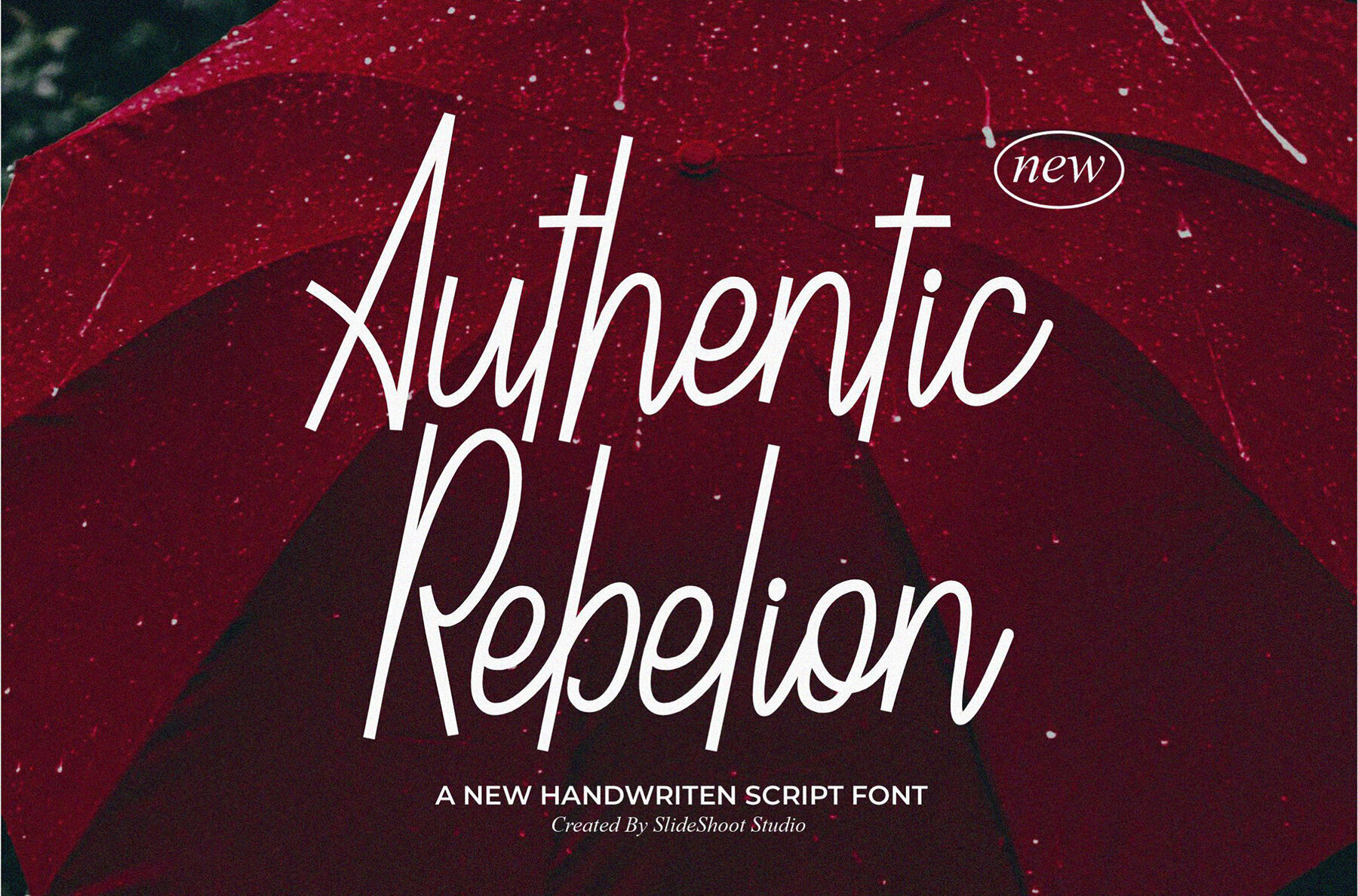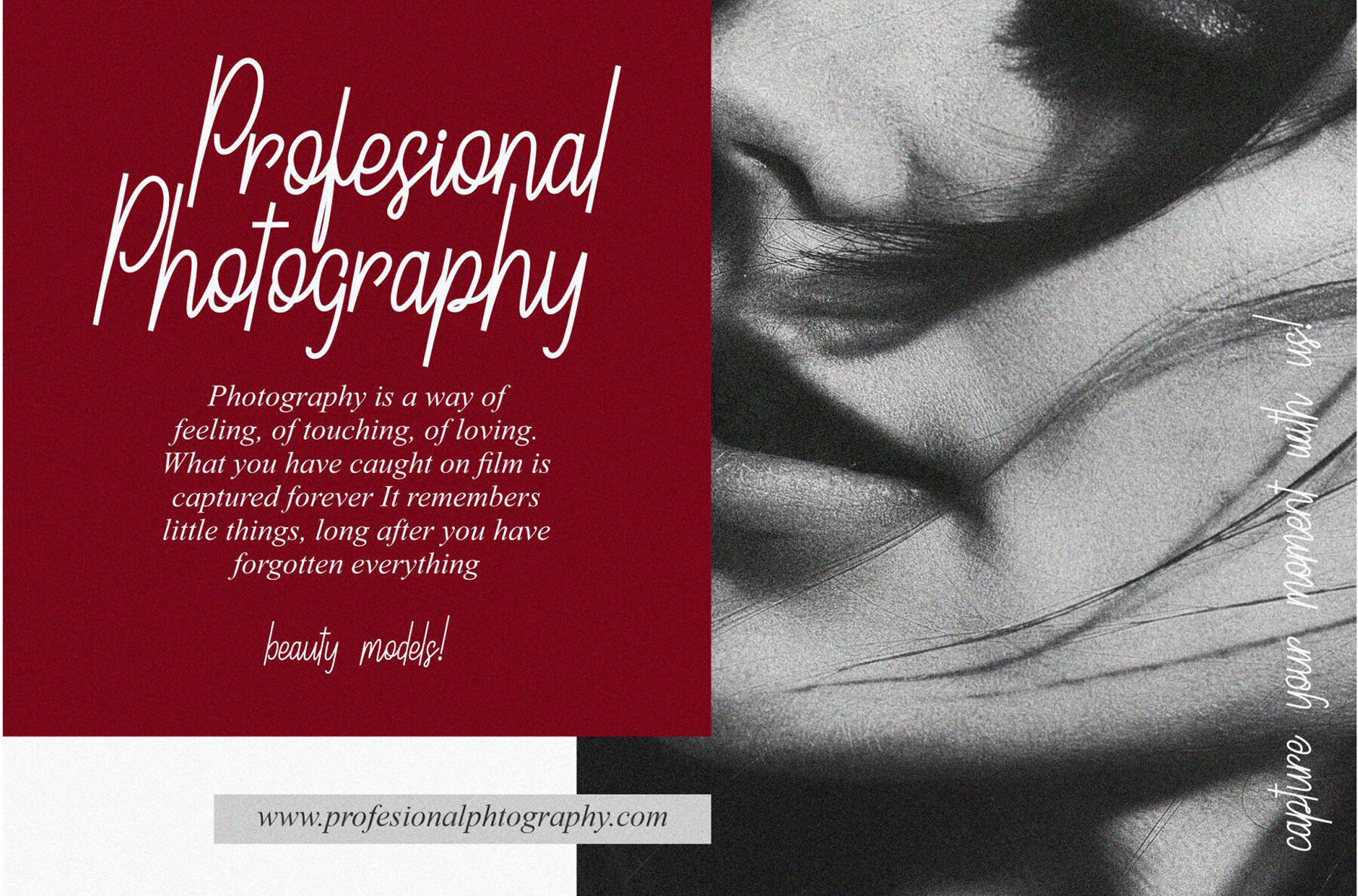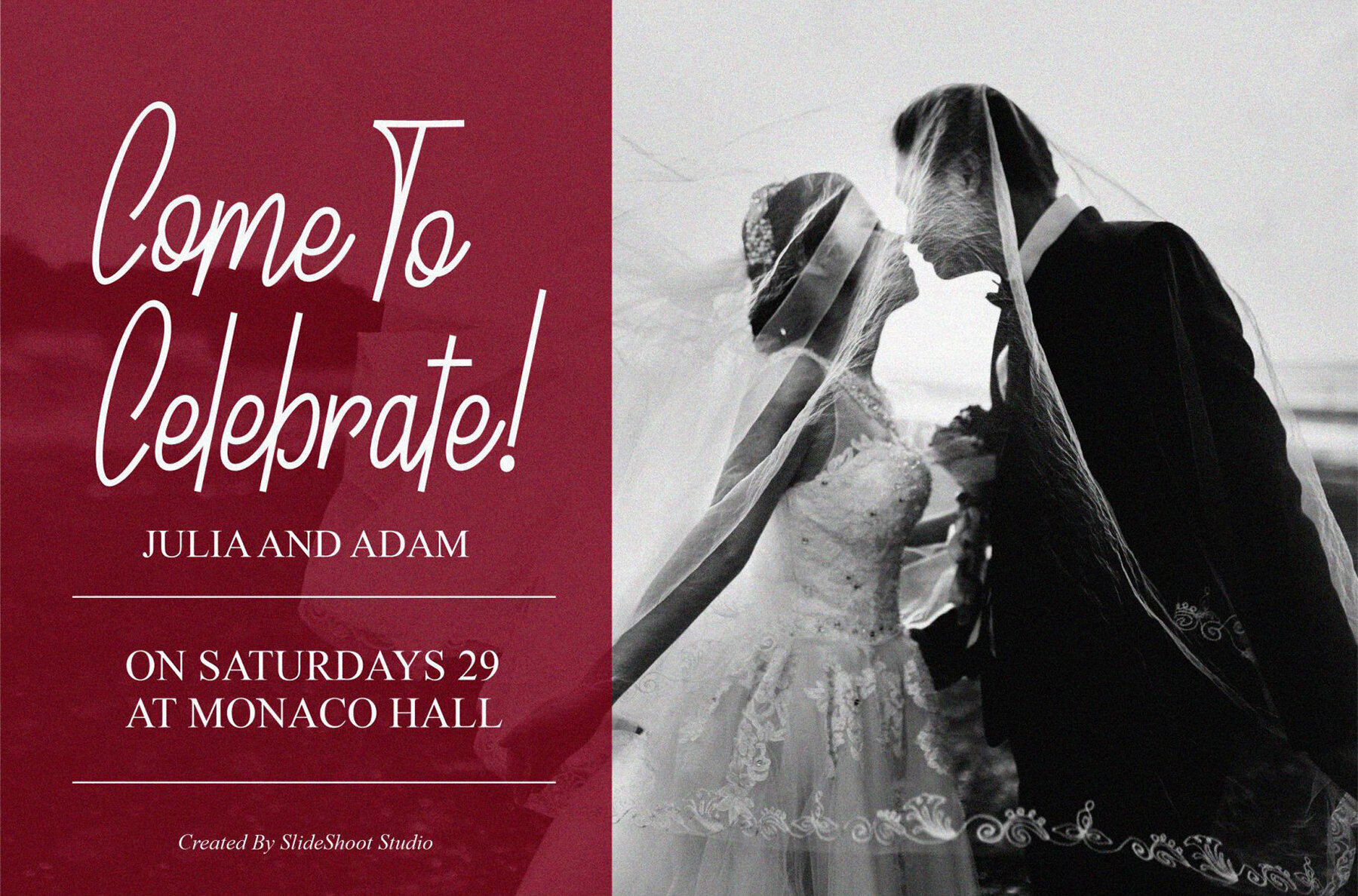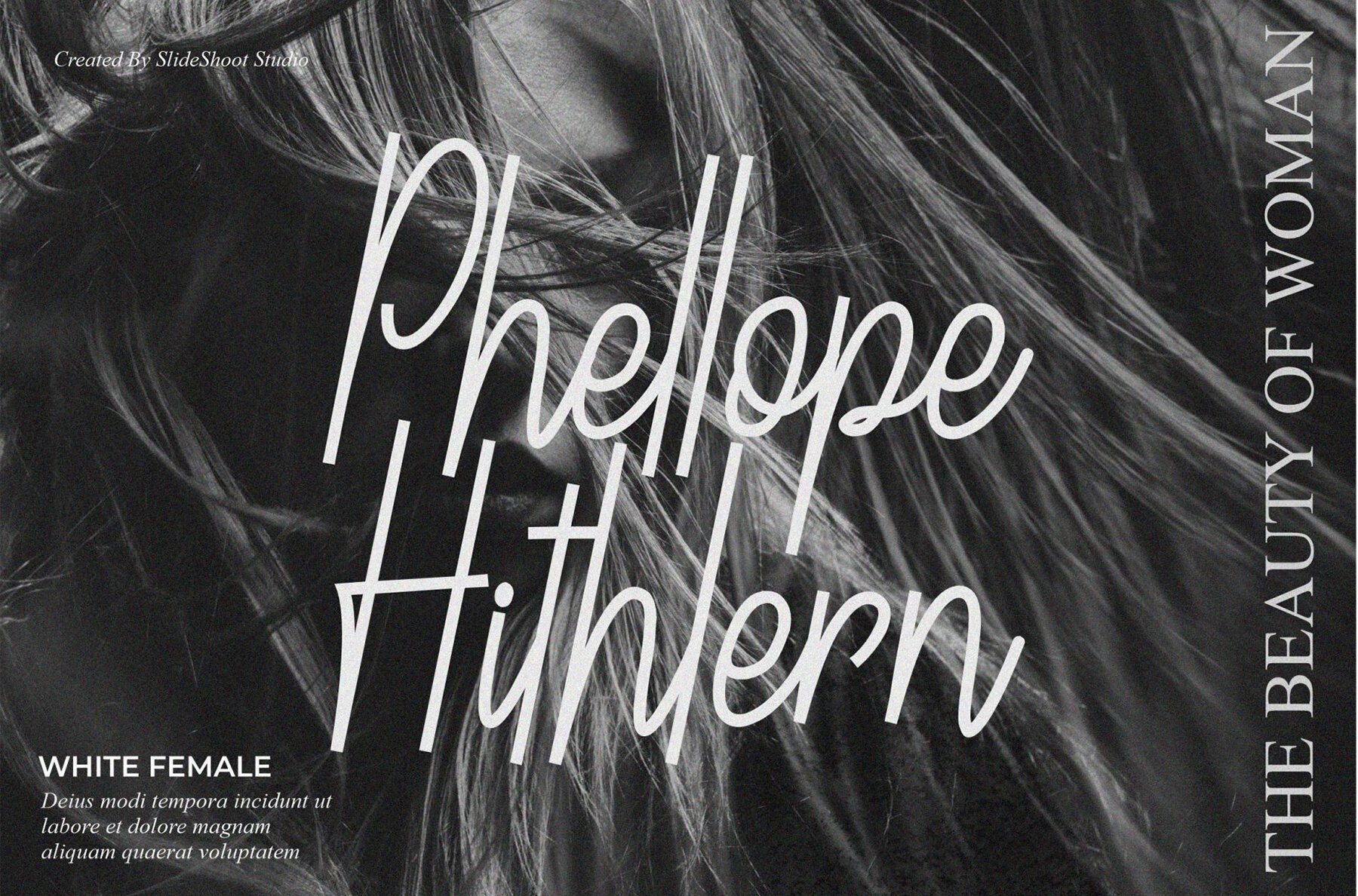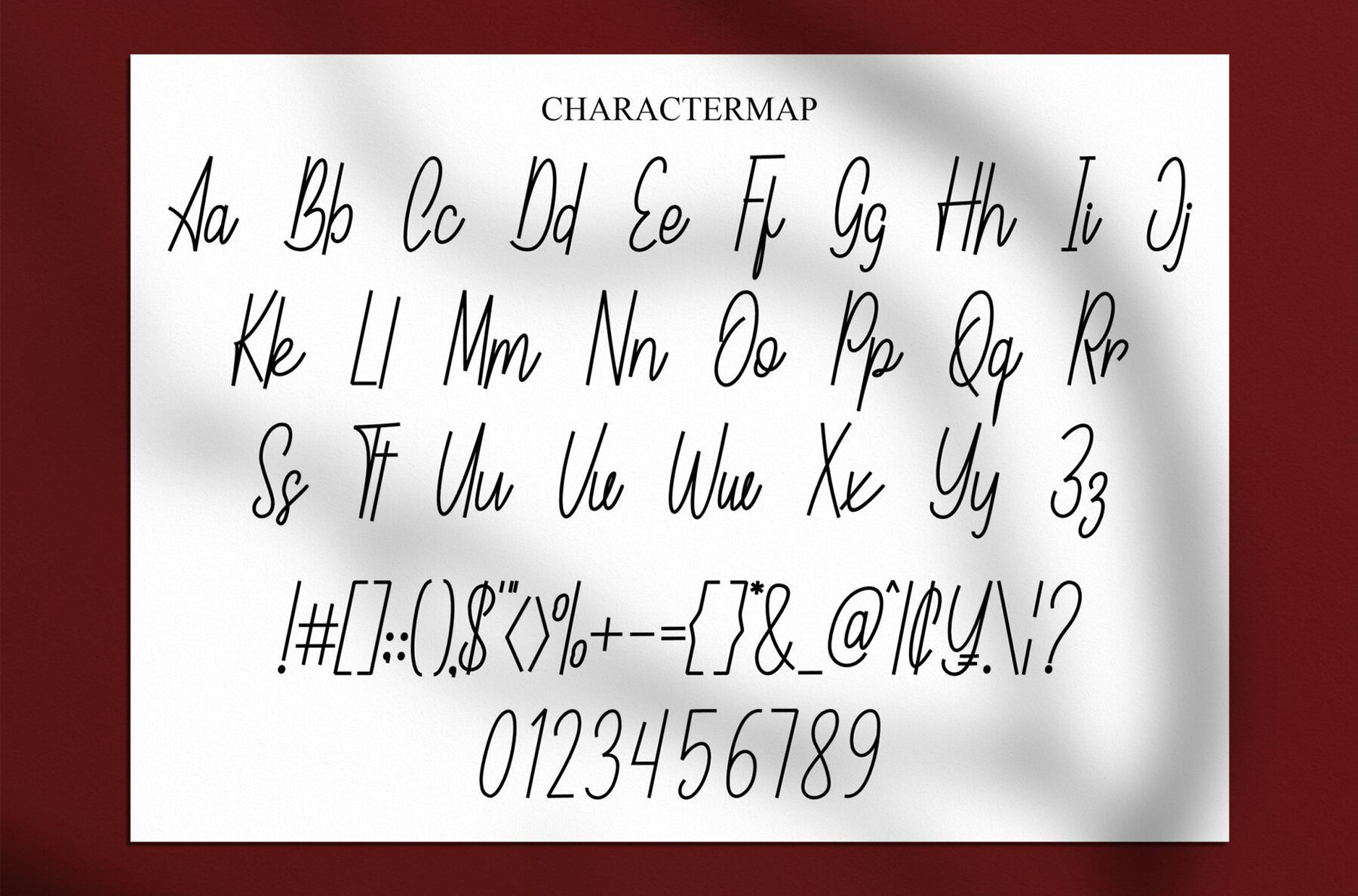
Authentic Rebelion Font
Authentic Rebelion
Authentic Rebelion is a captivating handwritten font that blends casual charm with an elegant flair. Its versatile style makes it an excellent choice for various design projects, effortlessly adapting to both modern and traditional themes. Whether you're working on branding, crafting eye-catching labels, or enhancing photography, Authentic Rebelion provides a personal touch that stands out.
Ideal for invitations, stationery, wedding designs, and more, this font adds a sophisticated yet approachable feel. It's perfect for social media posts, advertising campaigns, and product packaging, ensuring your message is both clear and memorable. Additionally, its unique character suits diverse design needs, making it a valuable asset for any creative endeavor.